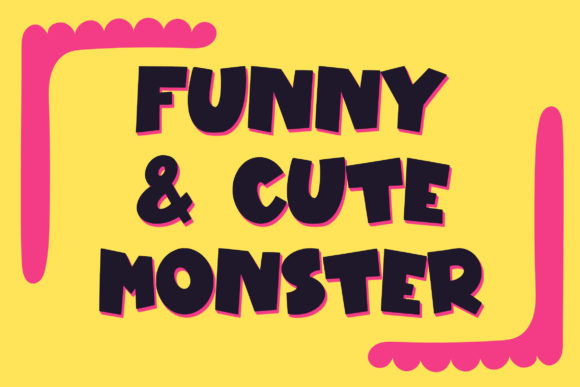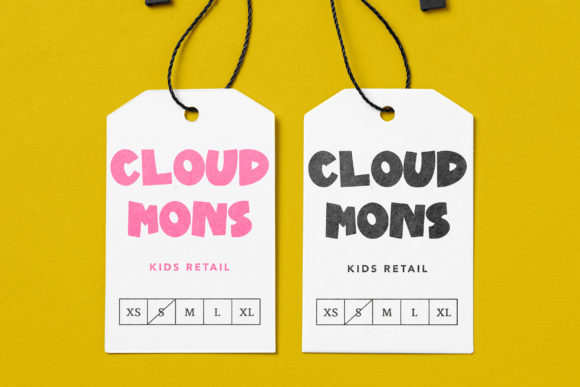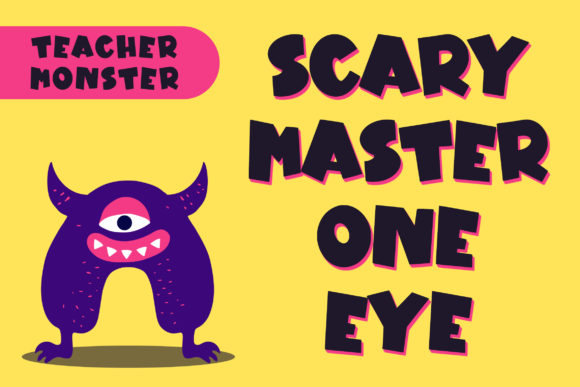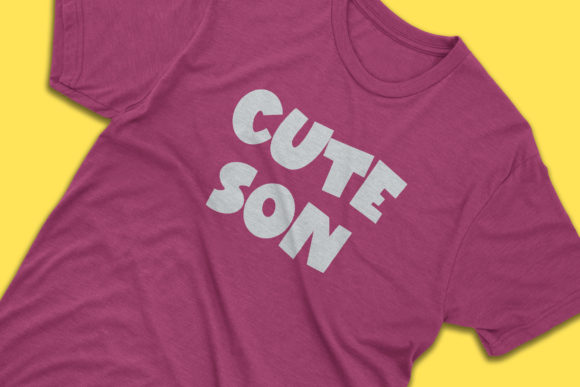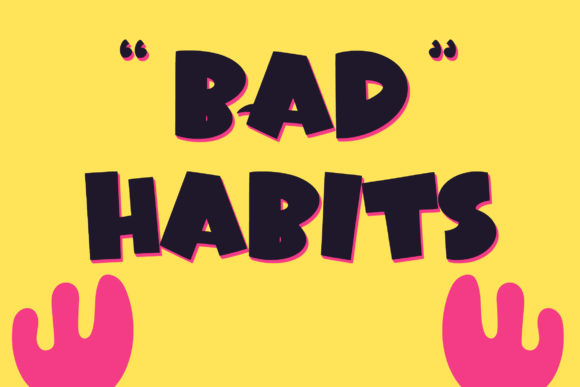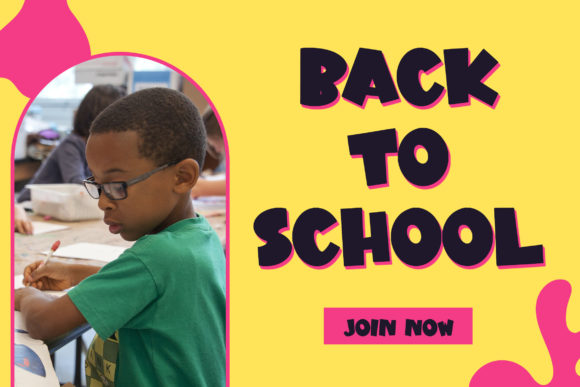
Introduction to Monster Tail Font
Have you ever been working on a creative project and suddenly, the perfect font pops into your head, elevating your entire design? That’s exactly what happened to me when I stumbled upon the Monster Tail Font. Its bold and thick letters seemed to scream ‘pick me!’ and I couldn’t resist giving it a try.
As a designer, I can tell you that finding the right font can make all the difference in a project. It’s the cherry on top of a delicious sundae, the icing on the cake, or in this case, the roar of a mighty monster. And that’s exactly what Monster Tail Font offers – a high-quality, free download that’s perfect for any creative endeavor.
With its transparent background and versatility, Monster Tail Font is a valuable addition to any design resource collection. Whether you’re working on a digital design, presentation, or even crafting greeting cards, this font is sure to become your new favorite go-to font.
Key Features of Monster Tail Font
- High-quality, unique font design ideal for creative projects, with a bold and playful style.
- Perfect for use in creative projects, such as logos, branding, and graphics, where a unique and eye-catching font is required.
Honest Review: Monster Tail Font
I recently had the chance to try out the Monster Tail Font, and I have to say it’s a pretty unique and interesting font. At first glance, the bold and playful style caught my eye, making it perfect for a creative project that needs a bit of flair.
- ✨ High-quality font that’s perfect for creative projects
- ⚠️ Limited character set, which might be a problem for those who need a wide range of characters
- ⚠️ Not suitable for large body text, as it can be a bit overwhelming
Overall, I think the Monster Tail Font is a great addition to any designer’s toolkit, especially for those working on creative projects that need a bit of personality. While it may have some limitations, the unique style and high quality make it a worthwhile download.
Tips for Getting the Most Out of Monster Tail Font
Experiment with different font sizes, colors, and styles to get the most out of the Monster Tail Font. You can also pair this font with other design elements, such as images and graphics, to create a visually appealing design.
Common Use Cases for Monster Tail Font
The Monster Tail Font is ideal for creative projects, including social media graphics, presentations, and business documents. You can also use this font for personal projects, such as designing business cards, brochures, and posters.